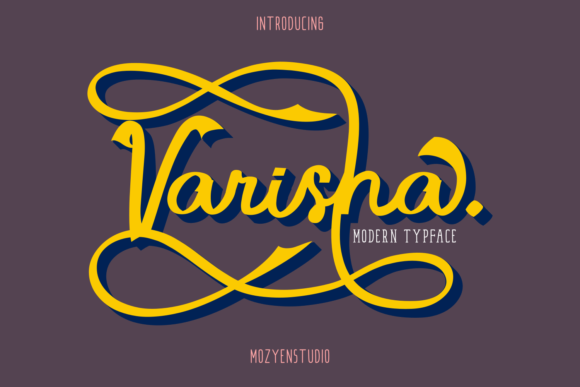
Varisha Font
Varisha is a modern, brand new display font.
Get inspired by its authentic feel and use it to create gorgeous beautiful stationary art, eye-catching social media posts, and cute greeting cards.